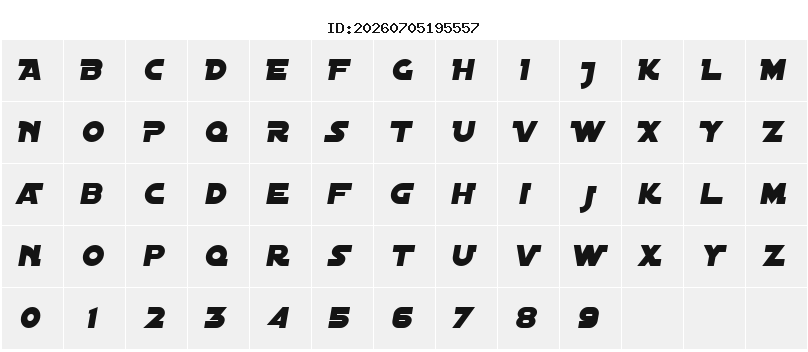
Distant Galaxy Alternate Preview
• Font Name: Distant Galaxy Alternate
• Full Font Name: Distant Galaxy Alternate Italic
About Distant Galaxy Alternate.ttf
Distant Galaxy Alternate.ttf is a modern, elegant sans-serif font designed for ultimate readability and visual harmony. Perfect for branding, headlines, web design, and print materials.